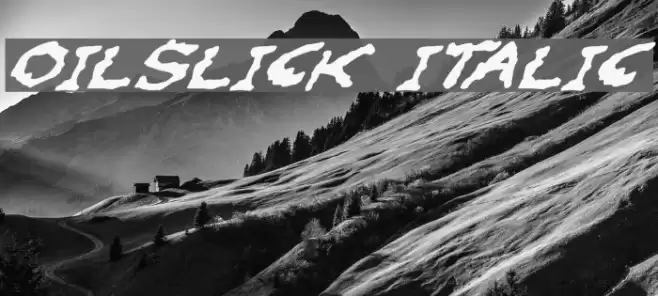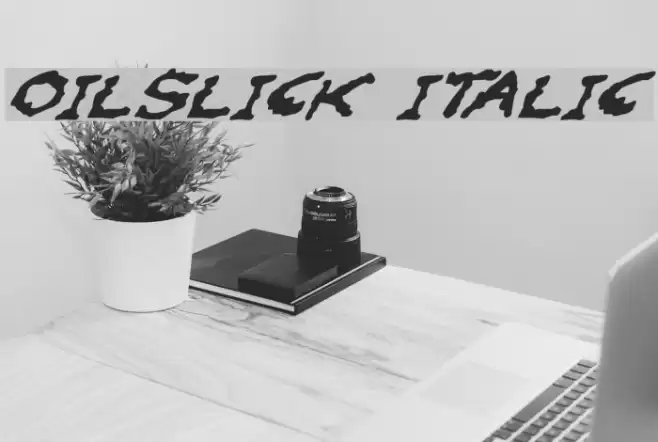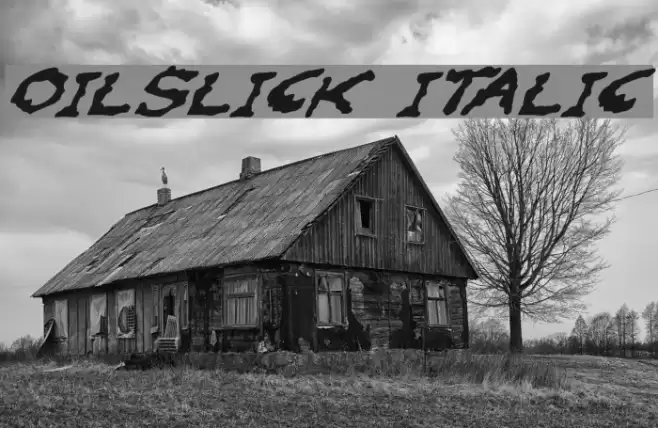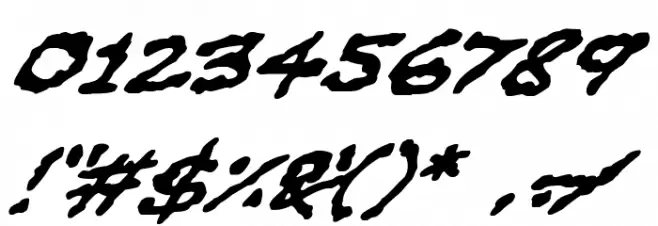
Oilslick Italic Font
Oilslick Italic Description
This font features a bold and dynamic style with a distinct italic slant, reminiscent of fluid motion or liquid forms. The characters are robust and have a textured appearance, giving them a unique, hand-drawn quality. The uppercase and lowercase letters maintain a consistent flow, with a slightly rugged edge that adds to the overall aesthetic. The numbers and special characters follow the same design principles, ensuring uniformity across all glyphs. This font's energetic and bold nature makes it stand out, ideal for projects that require a strong visual impact.
A bold, italic font with a textured, hand-drawn appearance from Distorted Eroded fonts.
- Proposed Projects: Ideal for branding, posters, album covers, and any design needing a bold, artistic touch.